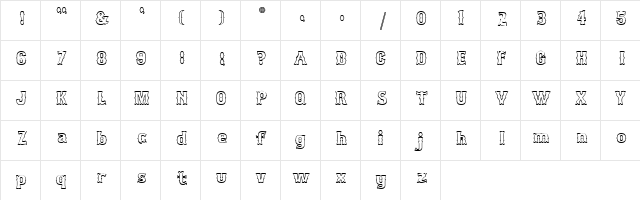
Bosox Outline Regular
Design Context for Bosox Outline Typeface
Bosox Outline is built around its visual character rather than neutral utility — its distinctive forms are designed to make an impression at display sizes.
Font Pairing: Pair with a clean neutral sans-serif for body copy to let Bosox Outline's character lead without overwhelming the composition.
Pro Tip: Treat Bosox Outline as the centrepiece of your typographic hierarchy. One strong heading set in a decorative face can carry an entire layout.